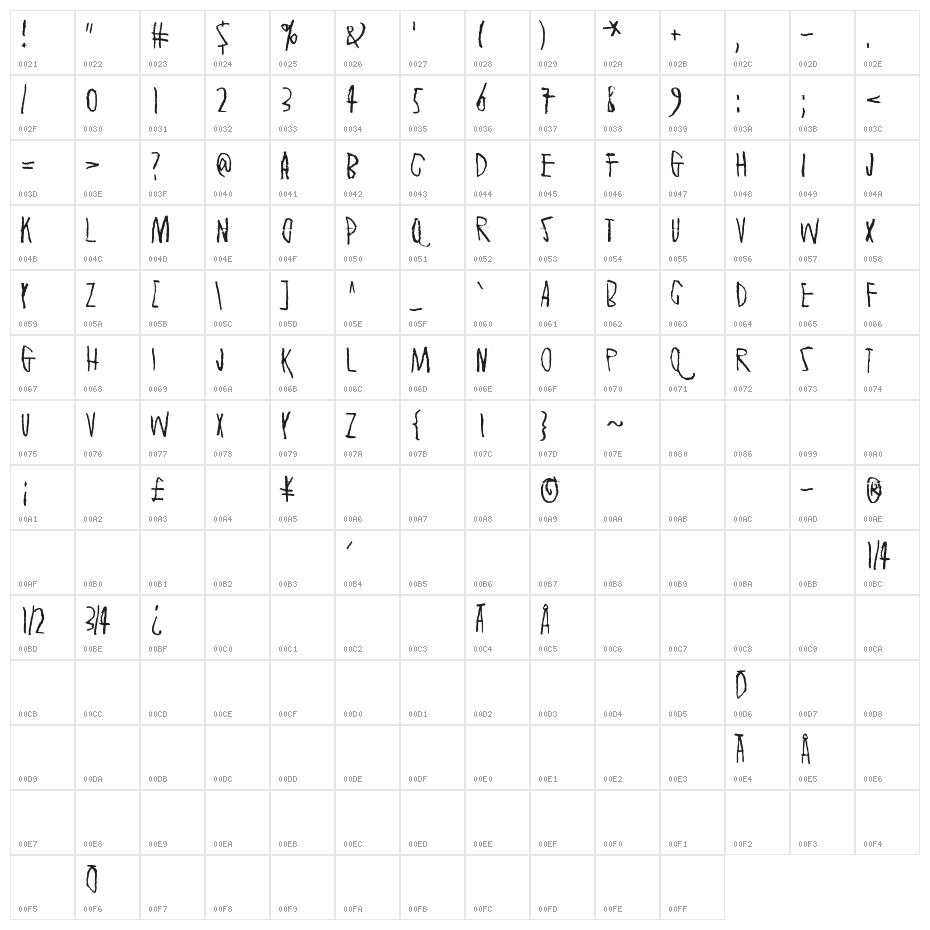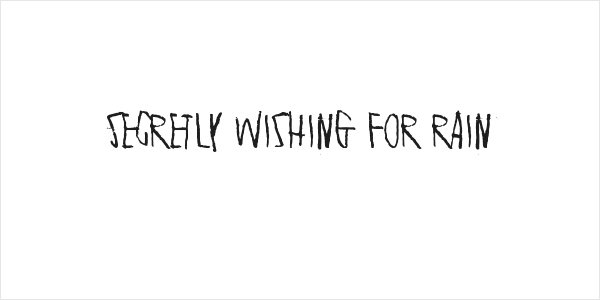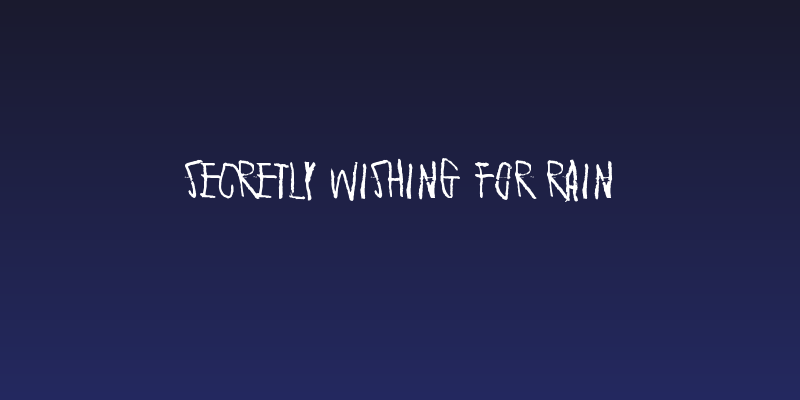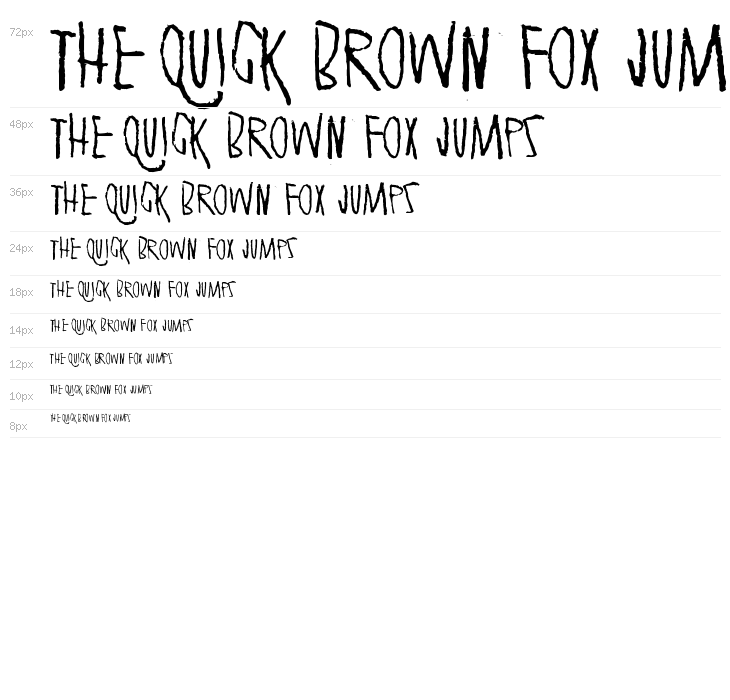
Secretly wishing for rain Font
Secretly wishing for rain Description
This font features a distinctive, hand-drawn style with an organic, slightly irregular appearance. The characters are tall and narrow, with a rough, textured finish that gives them a raw, expressive quality. The uppercase and lowercase letters maintain a consistent height, contributing to a cohesive look. The numbers and special characters follow the same aesthetic, with uneven strokes and a playful, artistic flair. This font's unique style makes it stand out, offering a creative and unconventional option for various design projects.
| Proposed Projects | Ideal for artistic projects, album covers, posters, and any design requiring a creative, hand-crafted touch. |